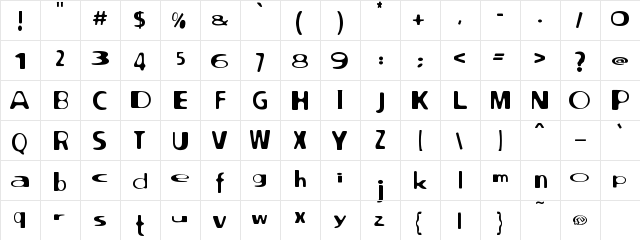
North point Regular
| Foundry | Chris Brown (visual design) |
| Designer | Chris Brown |
Design Context for North point Typeface
North point is a composed and adaptable typeface that performs quietly and consistently across a wide range of design contexts.